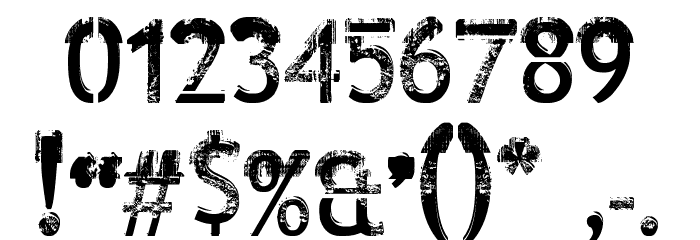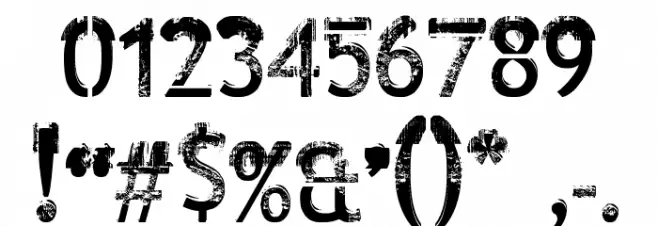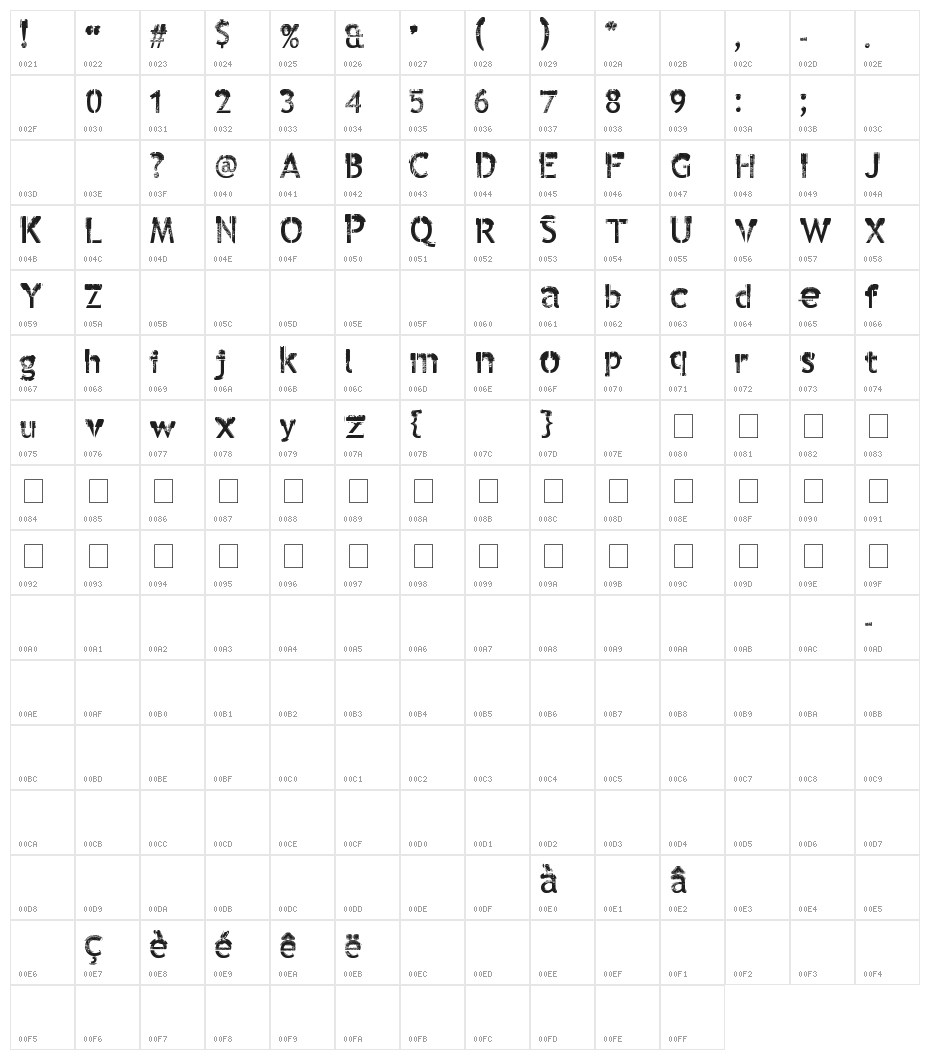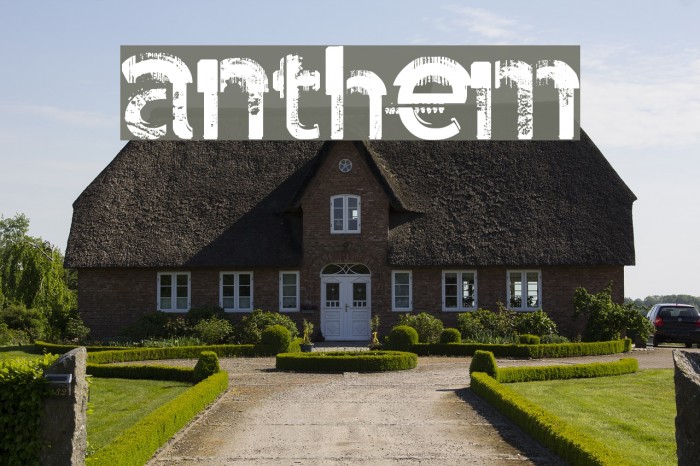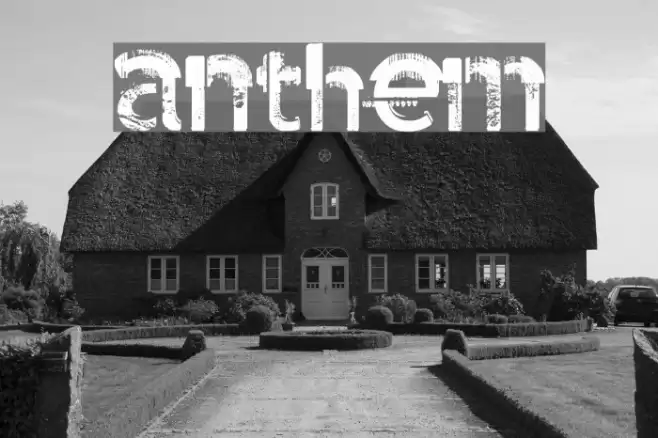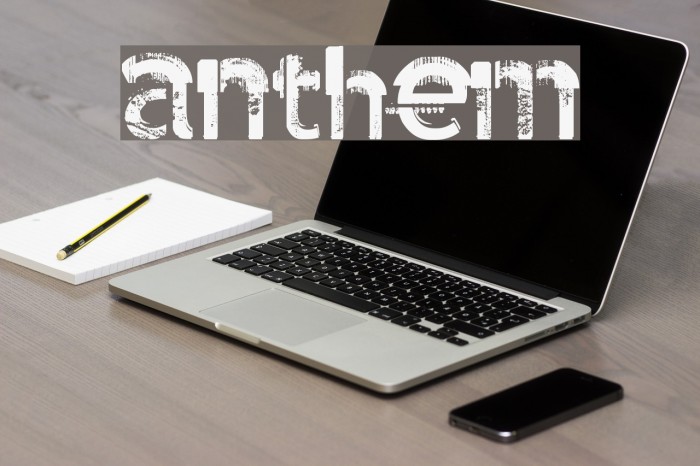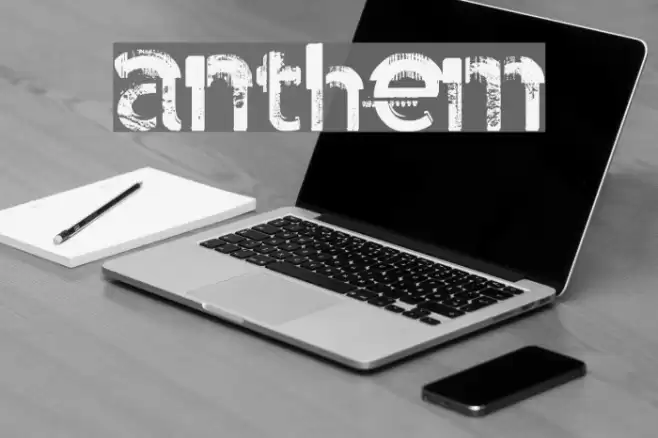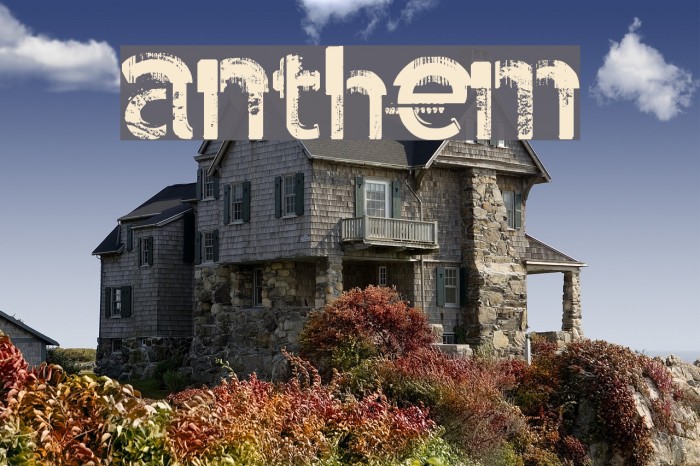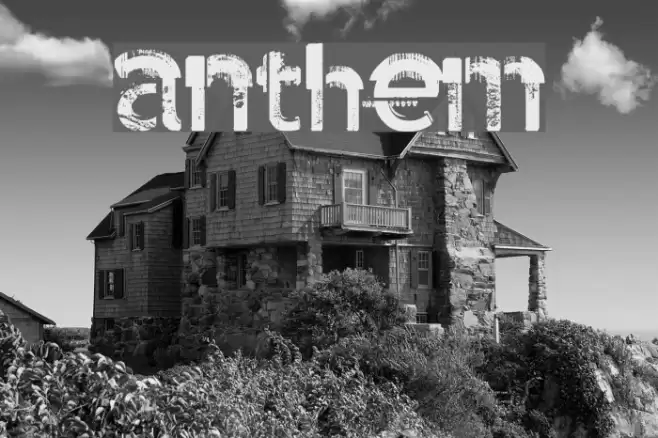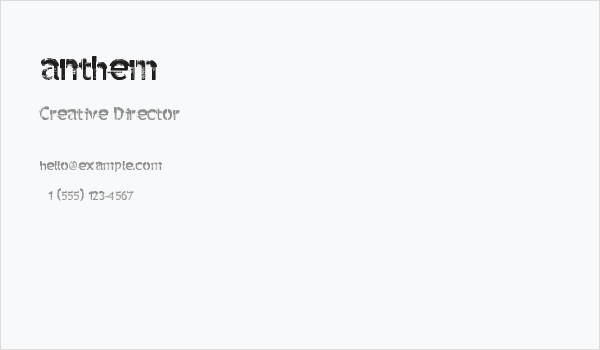
anthem Font
anthem Description
This font features a distressed, grunge style with a bold and impactful appearance. The characters are designed with a rough, textured effect that gives them a worn and vintage look. The uppercase and lowercase letters maintain a consistent style, with the texture adding a unique character to each glyph. The numerals and special characters follow the same design, ensuring a cohesive appearance across all elements. This font is ideal for projects that require a rugged, edgy aesthetic, such as posters, album covers, or branding for alternative or rock-themed events.
Overall StyleVintage, Grunge
Proposed ProjectsIdeal for posters, album covers, branding for alternative or rock-themed events, and any design needing a rugged, edgy aesthetic.